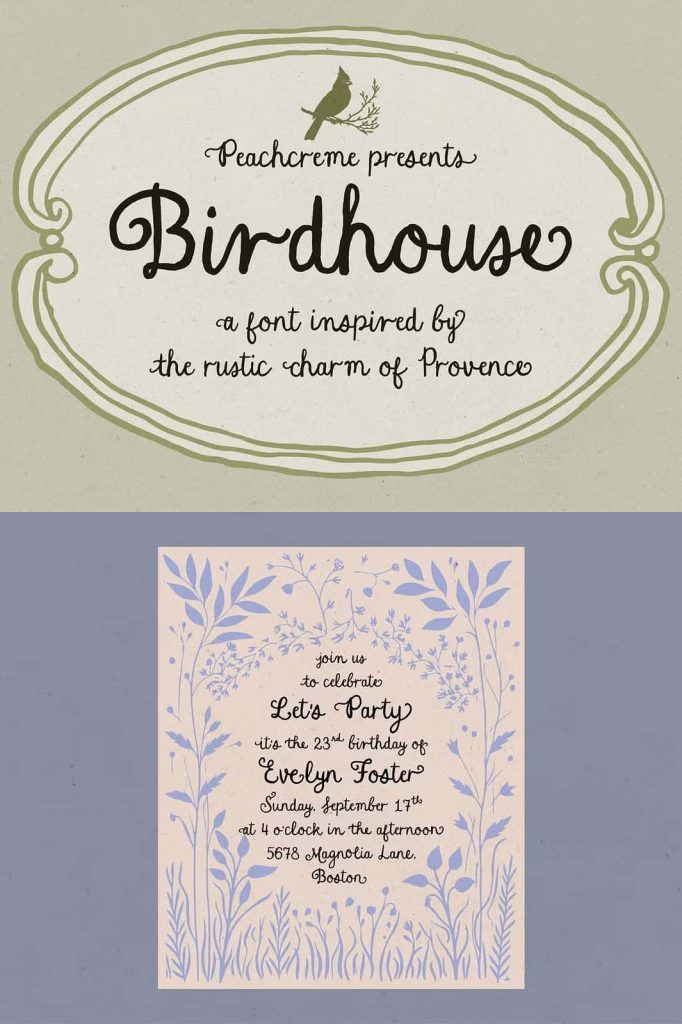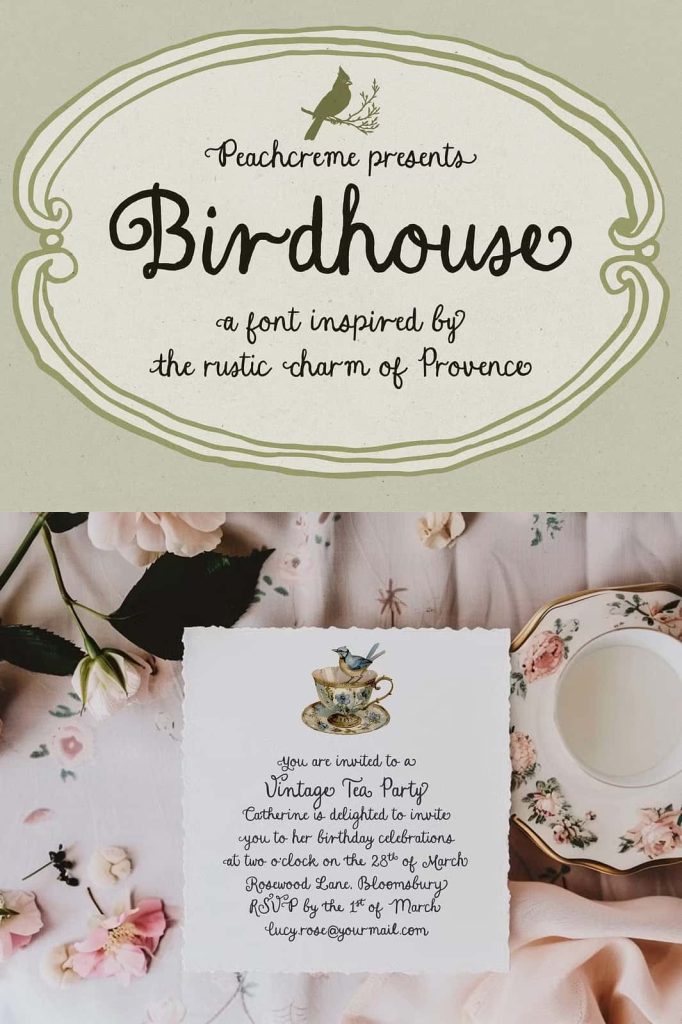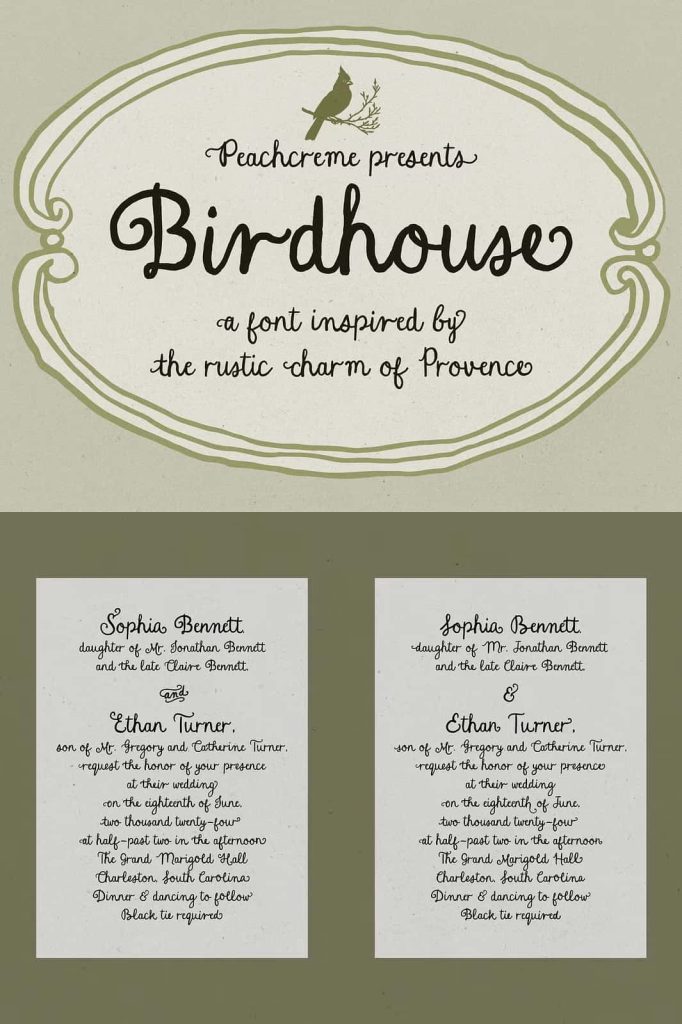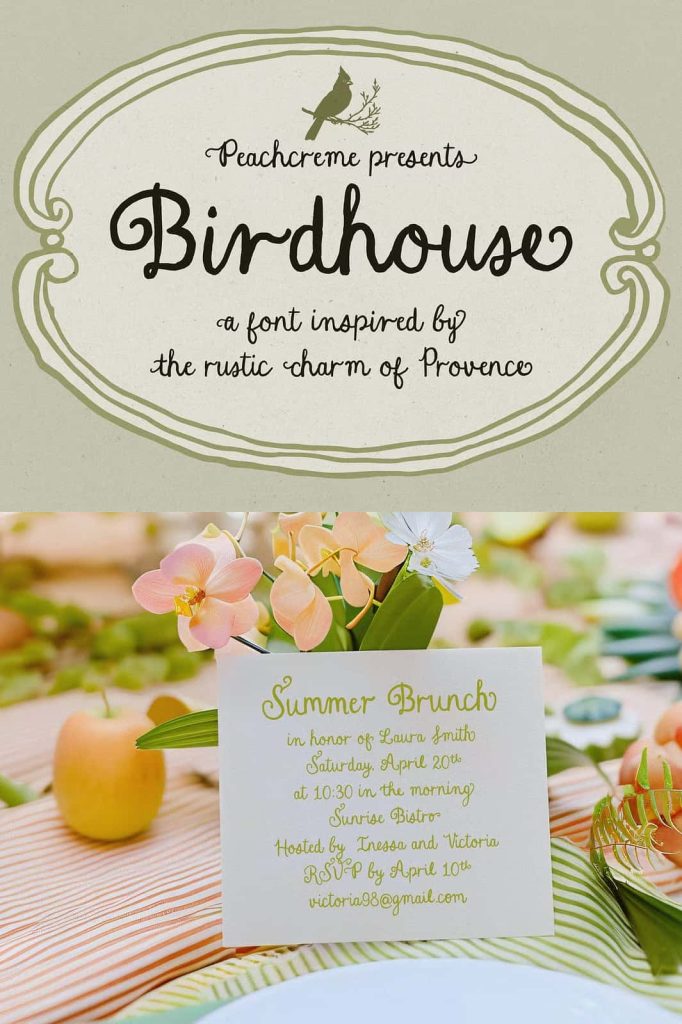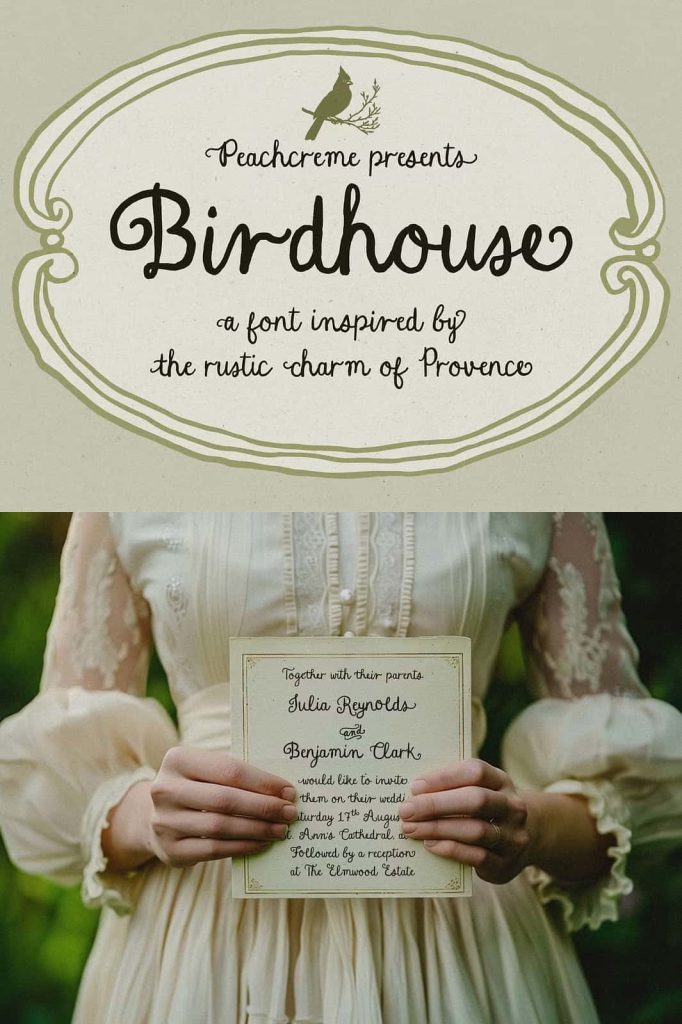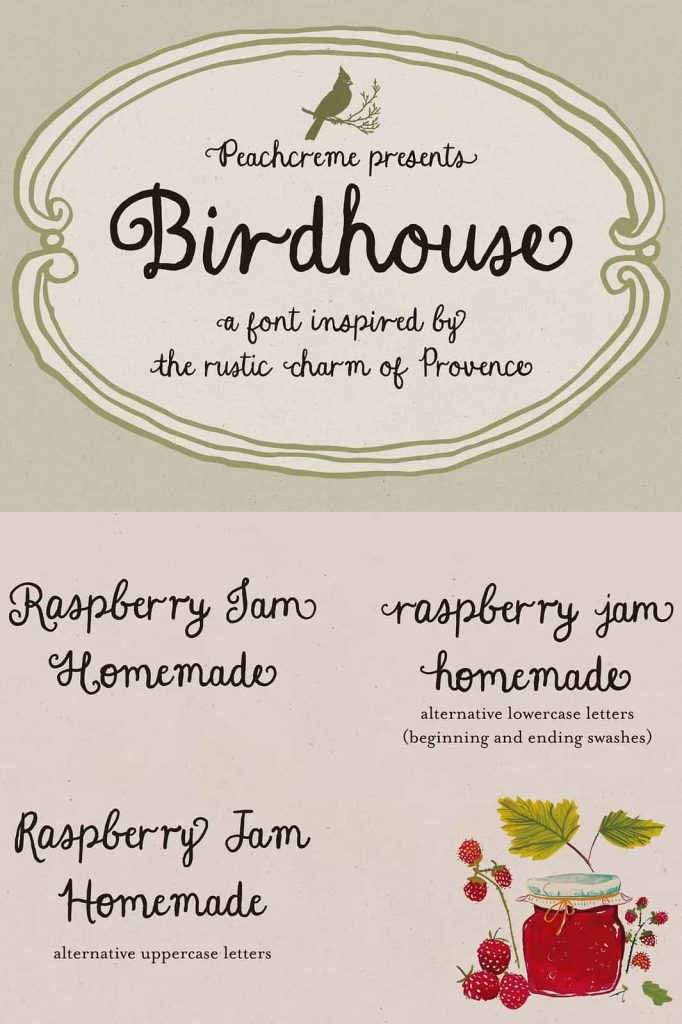
Birdhouse // Handwritten fontleastedJune 7, 2025Fonts ‘Birdhouse’ is a handwritten font that’s all about casual charm with a Provençal twist. Download